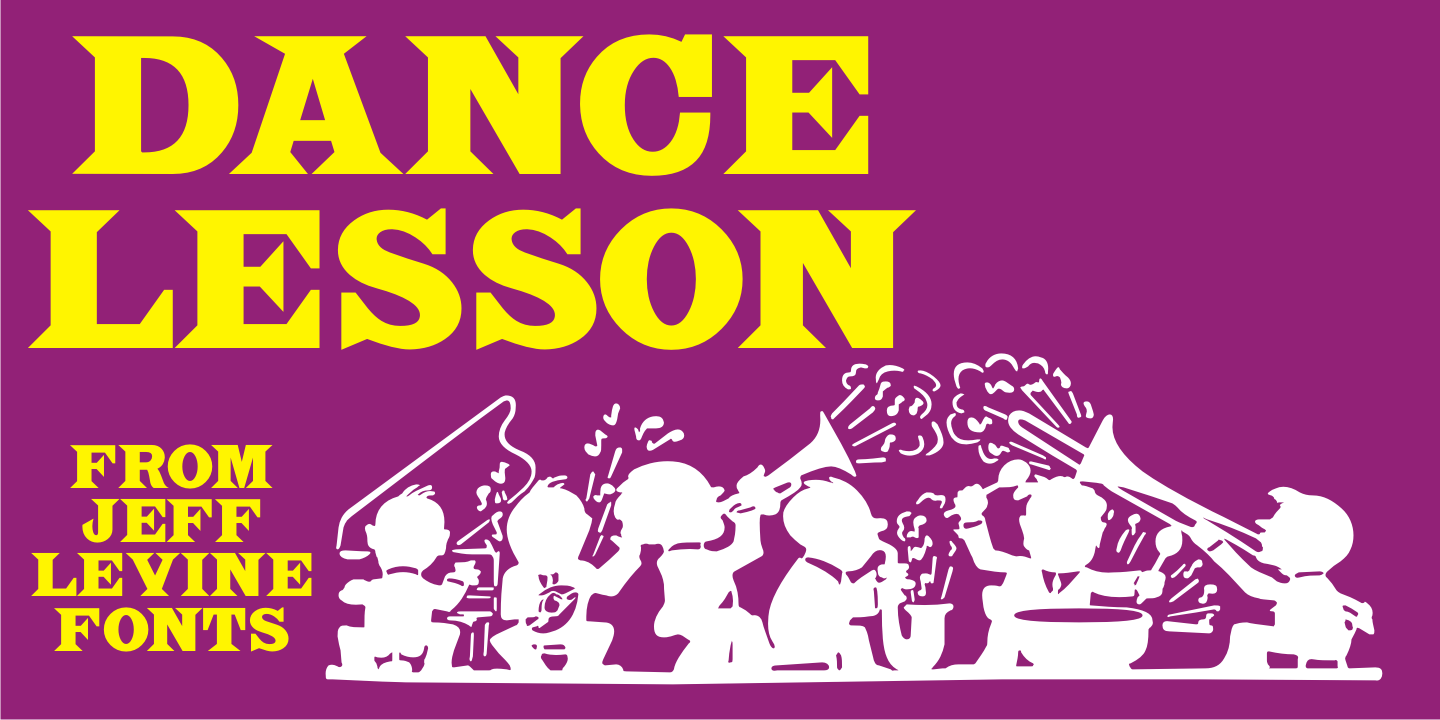
Dance Lesson
Dance Lesson JNL is a reinterpretation of the popular 'Latin Bold” typeface.
The font's name is a reference to the Latin dance craze of the 1950s, when the Cha-Cha, Meringue, Tango, Mambo and even the 'Chalypso” – a hybrid of Cha-Cha and Calypso rhythms had everyone moving to the beat of Central and South America.